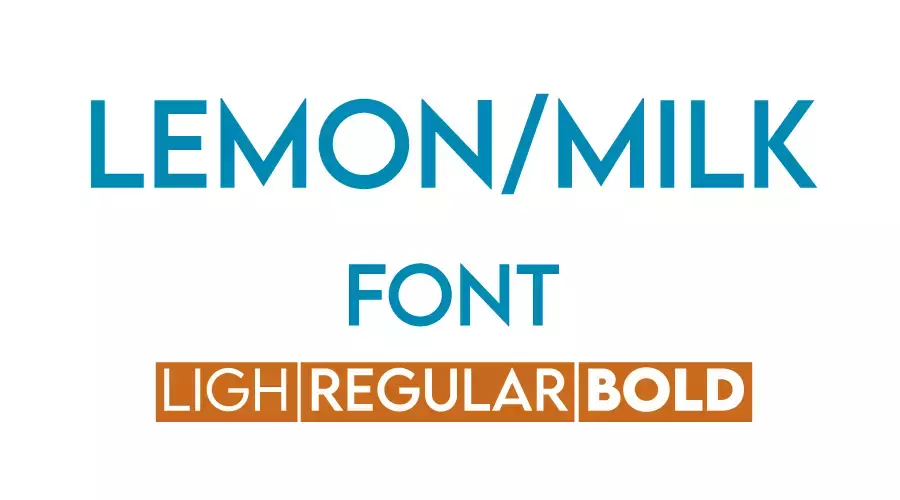
What is Lemon Milk Font
Today we will look at the Lemon Milk Font. Designed by Muhammad Ariq Syauqi, also known as MARSNEV, the sans-serif Lemon Milk Font was first created by students in Universitas Indonesia’s English Studies program in 2014. The release of the font was met with positive reviews, which motivated its designer, Muhammad Ariq Syauqi, to continue enhancing it. By the end of 2015, he had completed the first round of improvements. These included adding significant European accents and refining characters such as J, D, and the & symbol. Over the years, it has been improved and refined, now including advanced features and variable fonts.
About Font Designs and Usage
The pro-paid version of Lemon Milk Font is in variable font format, offering nine weights and matching italics for both uprights and supporting Latin, Cyrillic, and Greek characters. This makes it a suitable choice for international projects, giving designers the flexibility to create designs in different languages. With its versatile and modern look, Lemon Milk Font can be paired with different font styles to create a range of looks. These looks include modern and elegant, classic, bold and industrial, friendly and approachable, and simple and elegant.
Lemon Milk font is a popular, versatile typeface loved by a range of users. Muhammad Ariq Syauqi Aka MARSNEV, the creator of Lemon Milk Font, is a highly talented and well-known typographer in the design community. It has a modern, geometric sans-serif style and advanced features, making it ideal for a variety of design projects. For example, corporations like Nestle use the font for branding and marketing materials, and musicians like Taylor Swift use it for album covers, merchandise, and promotional materials. Multilingual support, customization options, and 8 styles make Lemon Milk a favorite of designers, corporations, and musicians.
In Conclusion
What is Lemon Milk font?
Ans: The Lemon Milk font is a modern geometric sans-serif typeface designed by Muhammad Ariq Syauqi, also known as MARSNEV.
When was the Lemon Milk font created?
Ans: Lemon Milk font was created in 2014 by students in Universitas Indonesia’s English Studies program.
How many styles does the Lemon Milk font have?
Ans: Lemon Milk font has eight styles with multilingual support, alternates, and other features.
Does the Lemon Milk font have a pro version?
Ans: Yes, Lemon Milk font has a pro version that is in variable font format, has nine weights, uprights with matching italics, and supports Latin, Cyrillic, and Greek characters.
Who is MARSNEV, the creator of the Lemon Milk font?
Ans: MARSNEV, also known as Muhammad Ariq Syauqi based in Indonesia, is one of the most popular typographers in the community and is the creator of the Lemon Milk font.